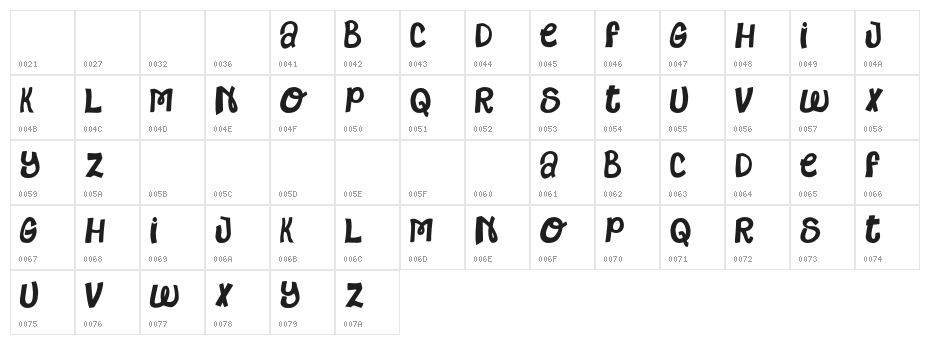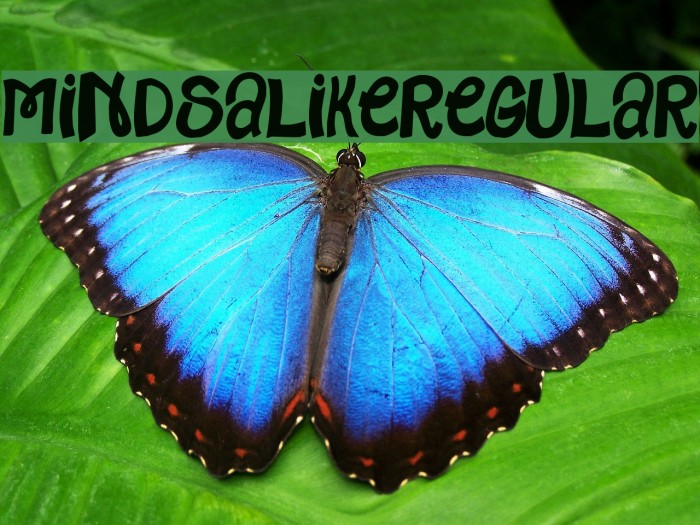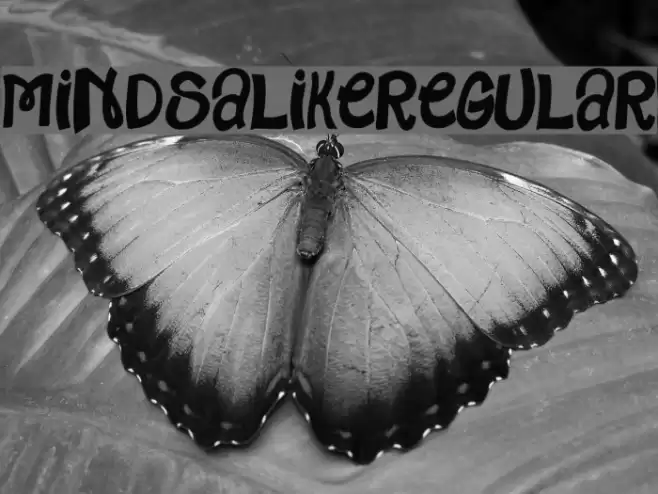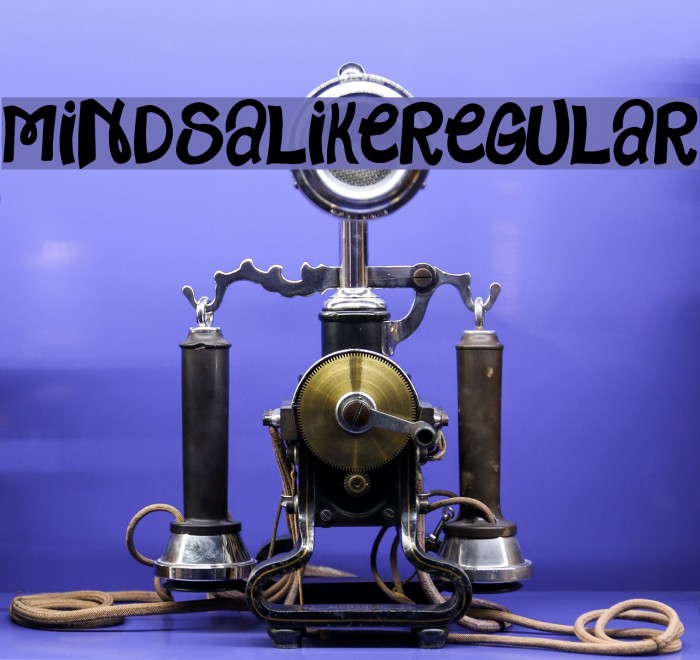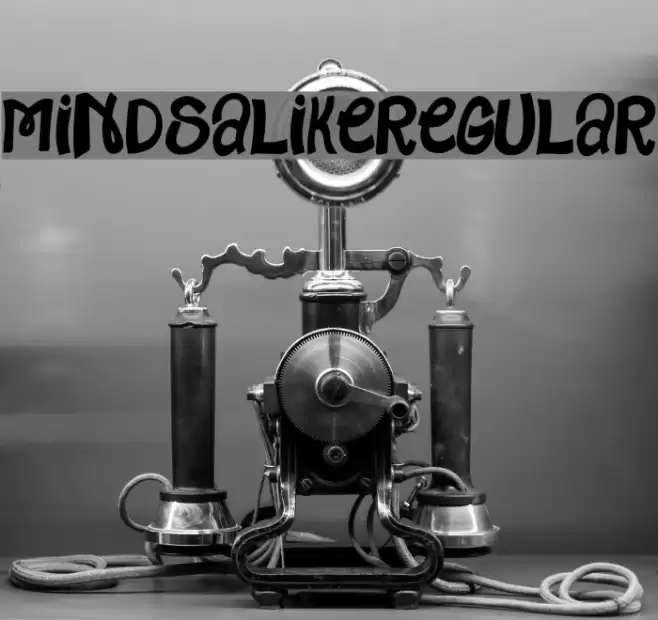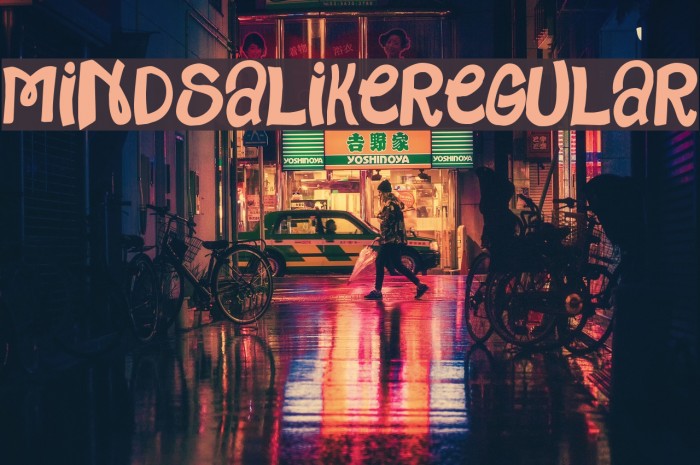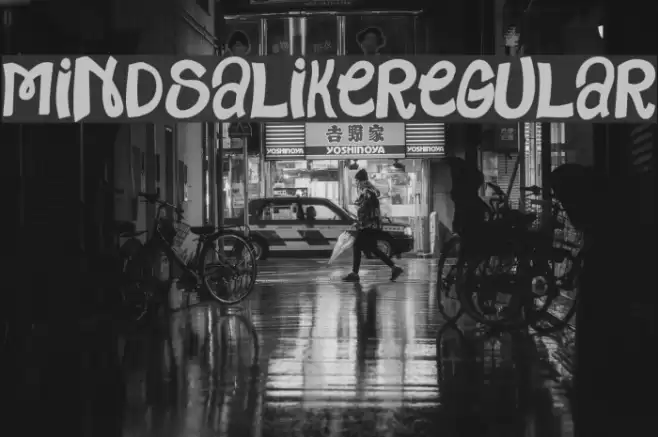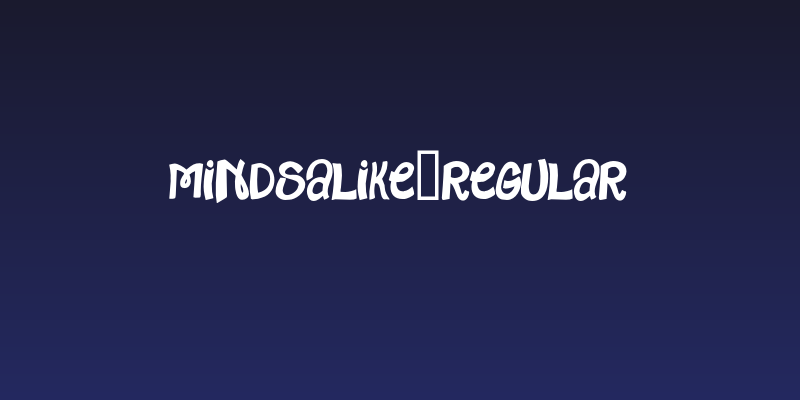
MindsAlike-Regular Font
MindsAlike-Regular Description
This font features a bold and playful design with a hand-drawn aesthetic. The characters have a whimsical and slightly irregular shape, giving them a lively and dynamic appearance. The strokes are thick and consistent, contributing to a strong visual impact. The overall style is reminiscent of casual handwriting, making it suitable for projects that require a personal and approachable touch. The font maintains a consistent weight throughout, with moderate character spacing that ensures readability while preserving its unique style.
| Overall Style | Playful, Hand-drawn |